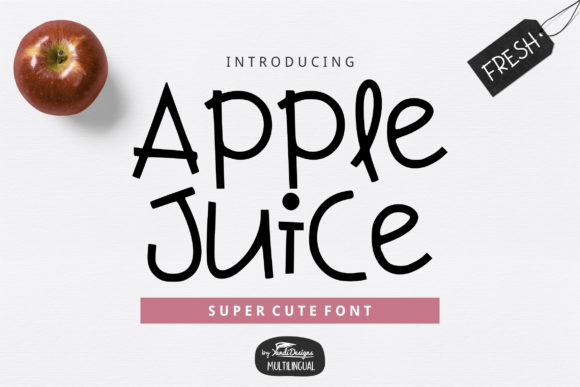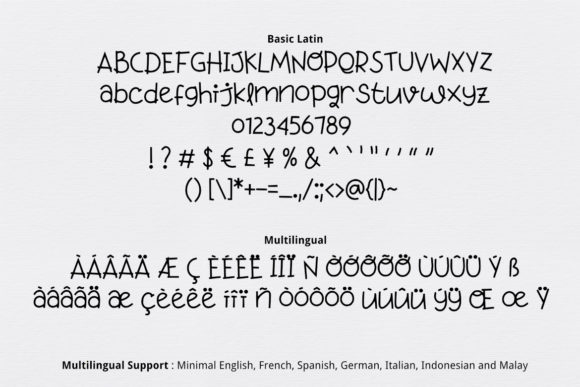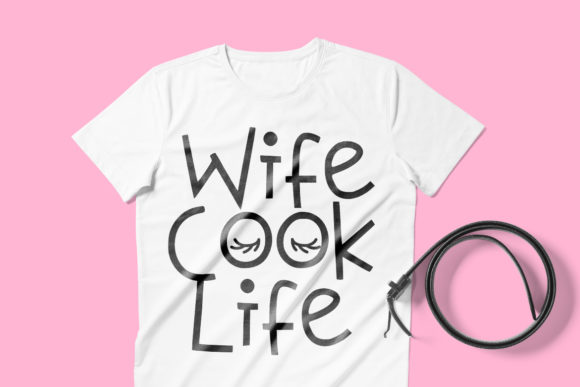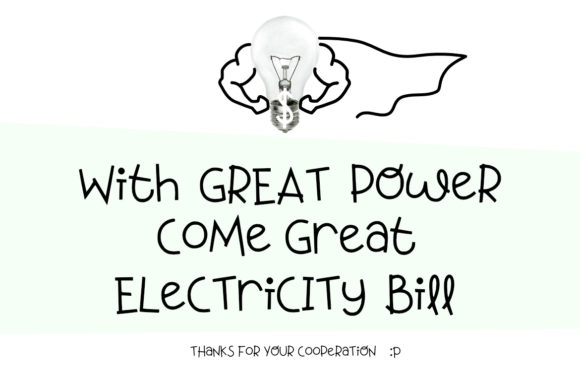
Apple Juice Font
About the Apple Juice Font
Crafted with precision, the Apple Juice Font is ready to bring your ideas to life. Apple Juice is a cute and playful sans serif font with a modern twist. Get inspired by its unique charm!
Apple Juice’s playful yet modern design makes it ideal for headlines, short text blocks in branding materials, and packaging design where a youthful and approachable feel is desired. It works exceptionally well for children’s products, social media graphics, and playful marketing campaigns. However, its character is not well-suited to body text or long-form content; its informal nature would quickly become tiring to read in large quantities. Avoid using it in UI design or situations requiring high legibility at small sizes.
Pairing Apple Juice with a clean sans-serif like Open Sans for body text provides a strong contrast and maintains readability. For a more sophisticated feel, consider pairing it with a classic serif such as Garamond or a geometric sans-serif like Futura. These pairings allow Apple Juice’s playful energy to shine while providing structure and balance to the overall design.
The font’s core personality is best described as friendly, approachable, and slightly mischievous; a modern take on a classic playful aesthetic.